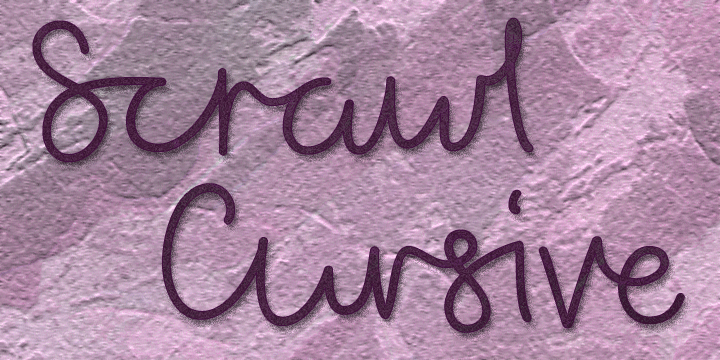
Scrawl Cursive Font is perfect for handwritten notes, personal journals, casual greeting cards, artistic quotes, creative scrapbooking, informal invitations, authentic diary designs, and expressive personal branding projects.
What makes Scrawl Cursive Font exciting is its spontaneous, free-flowing character that captures the authentic irregularity and natural charm of genuine handwriting. The organic variations and imperfect curves create an intimate, human connection that digital perfection cannot replicate, bringing personality to every word.
Scrawl Cursive Font family includes regular, bold, light, rough, and smooth versions, plus connecting ligatures, alternative characters, and natural variations that enhance the authentic handwriting experience with realistic spontaneity.
Express authentic personality with Scrawl Cursive Font Free Download, the ultimate choice for projects requiring genuine human touch and unpolished charm. This captivating typeface embodies the beauty of imperfection through letterforms that dance with natural rhythm and spontaneous energy. The carefully preserved irregularities feature authentic handwriting characteristics that make each word feel personally crafted and emotionally connected. Creative professionals and personal brand designers consistently select this font for projects requiring intimate communication that resonates on a deeply human level. Its comprehensive variation system provides unlimited possibilities for creating unique expressions that celebrate individuality while maintaining consistent character throughout your personal narrative. Experience the liberating power of imperfect typography that transforms standard digital text into heartfelt personal communications, establishing your brand as genuinely human in an increasingly automated world where authentic connection has become the most precious commodity.